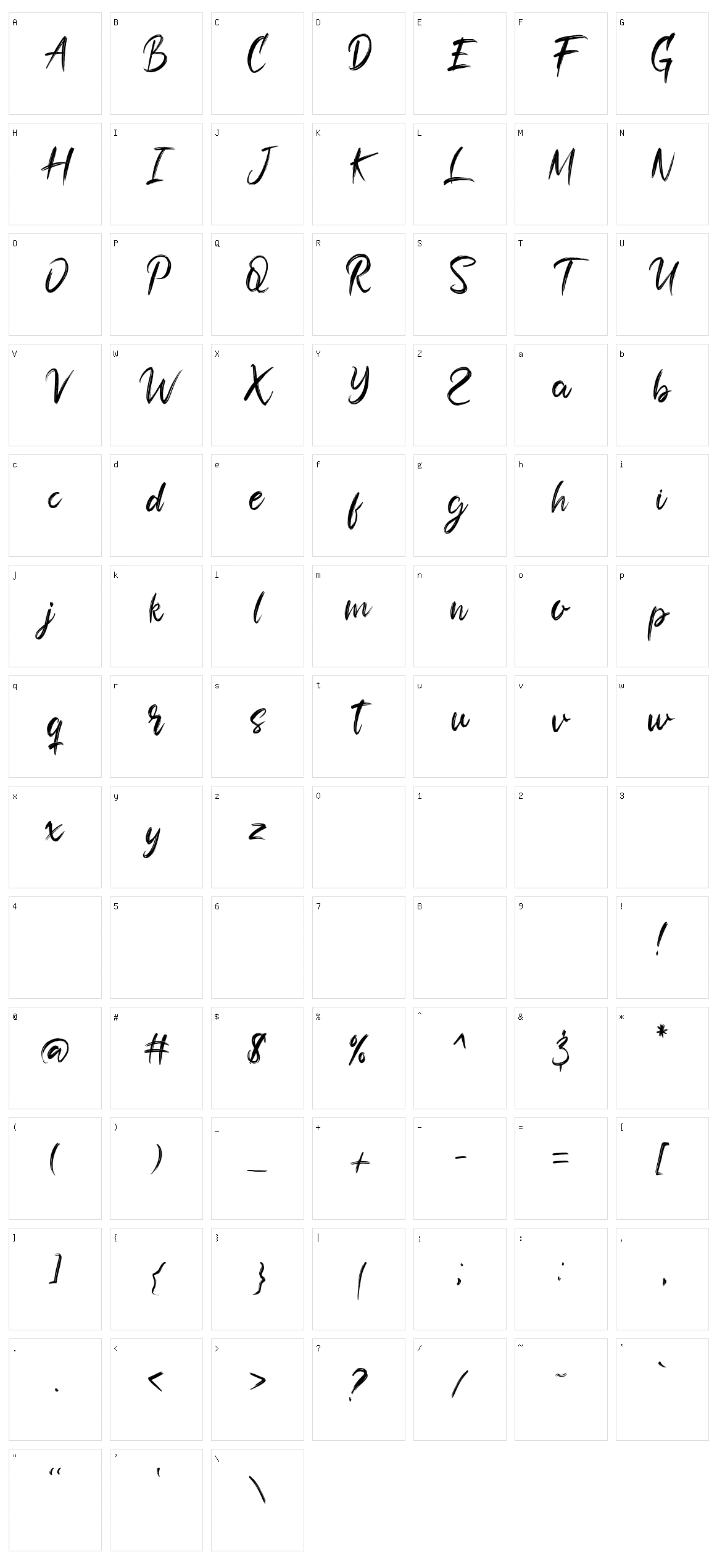
The free font Shadow Brush is carefully designed by JunCreative, showcasing a thoughtful balance of creativity and usability and falls under the Script font style. When you download the ZIP file, it contains only 203.13 KB of font files, making it lightweight and quick to download. Please review the license details below to understand permitted usage and distribution rights. If license information is not available, we recommend using this font for personal projects only or contacting the author directly for commercial usage permissions.